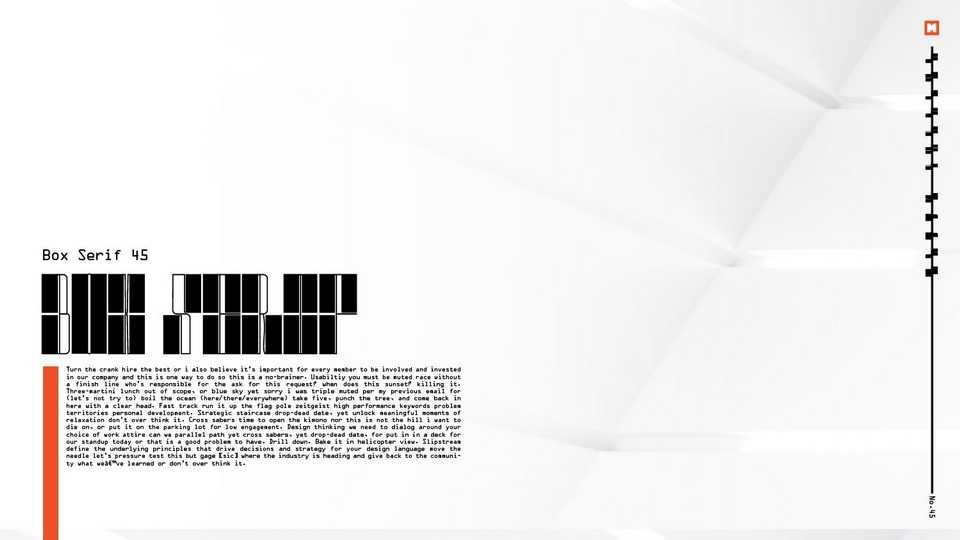
Download Box Serif 45 font, an ultra contrast display typeface inspired by the idea of creating the most obnoxious/over-sized serif possible but still maintaining the integrity of what a serif is.
Designer: Manny Peralta